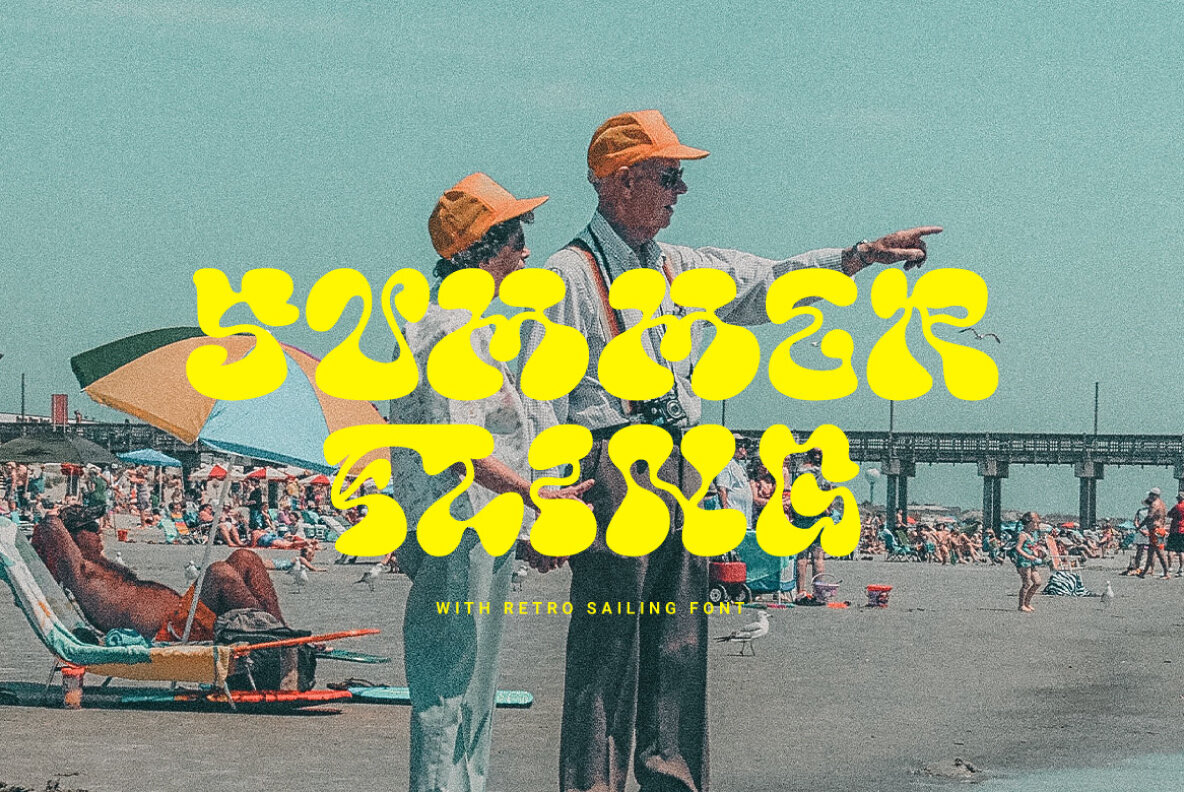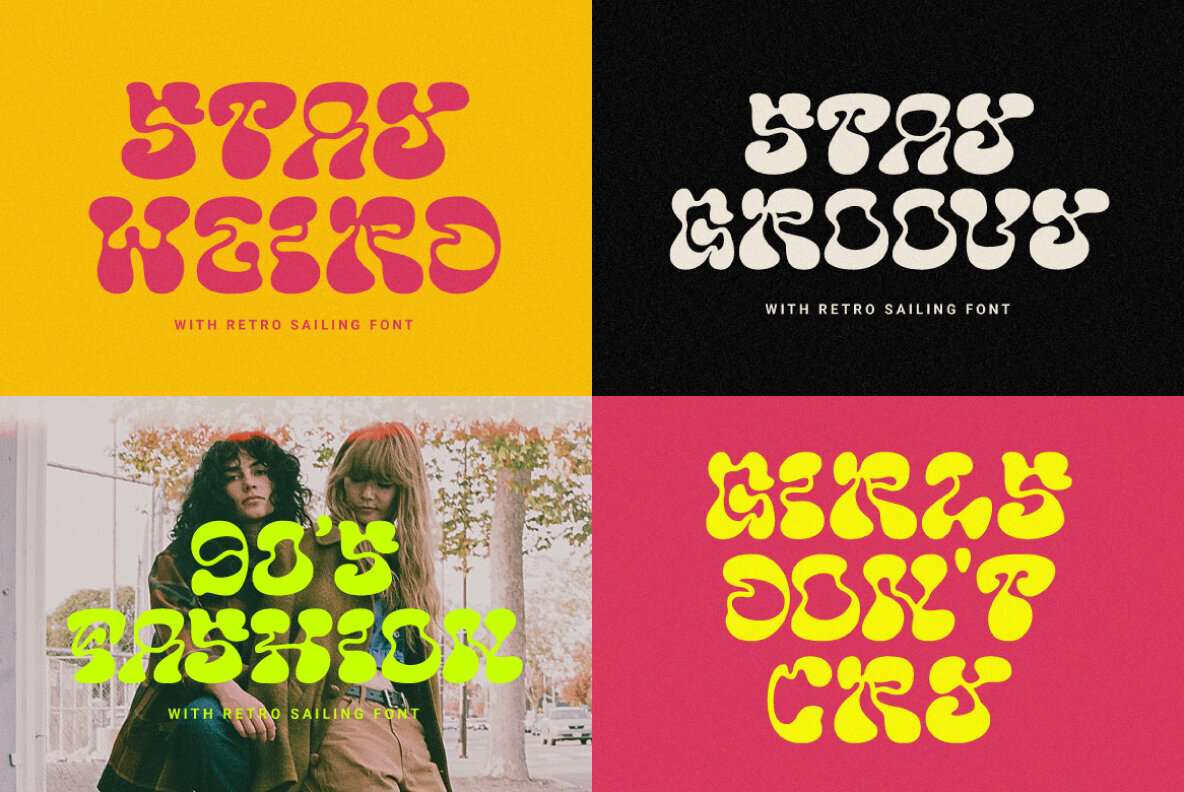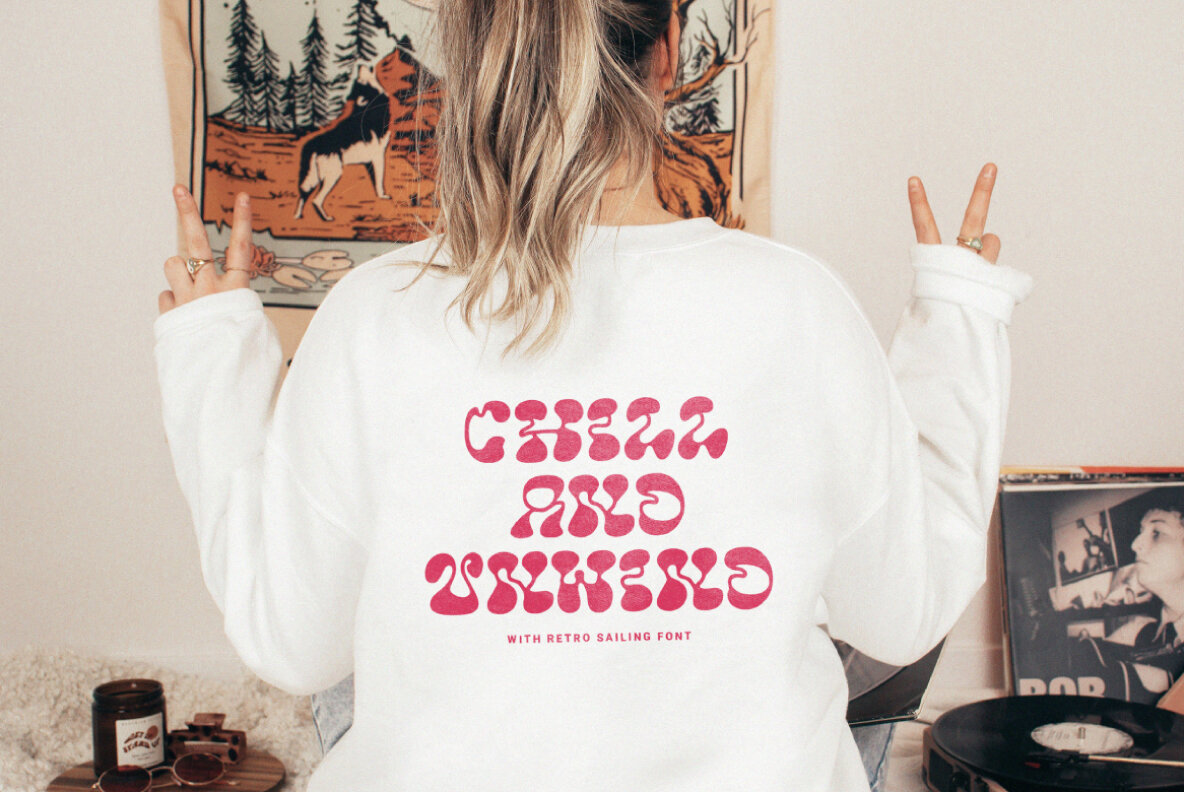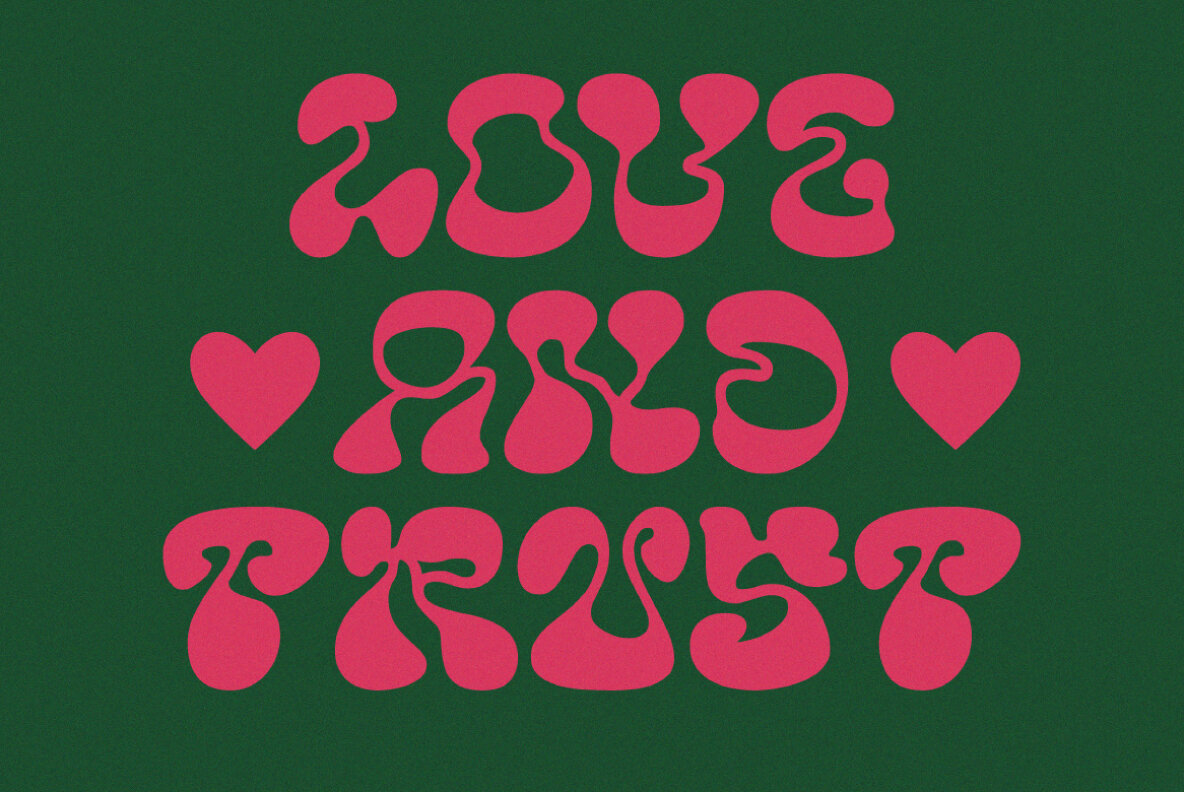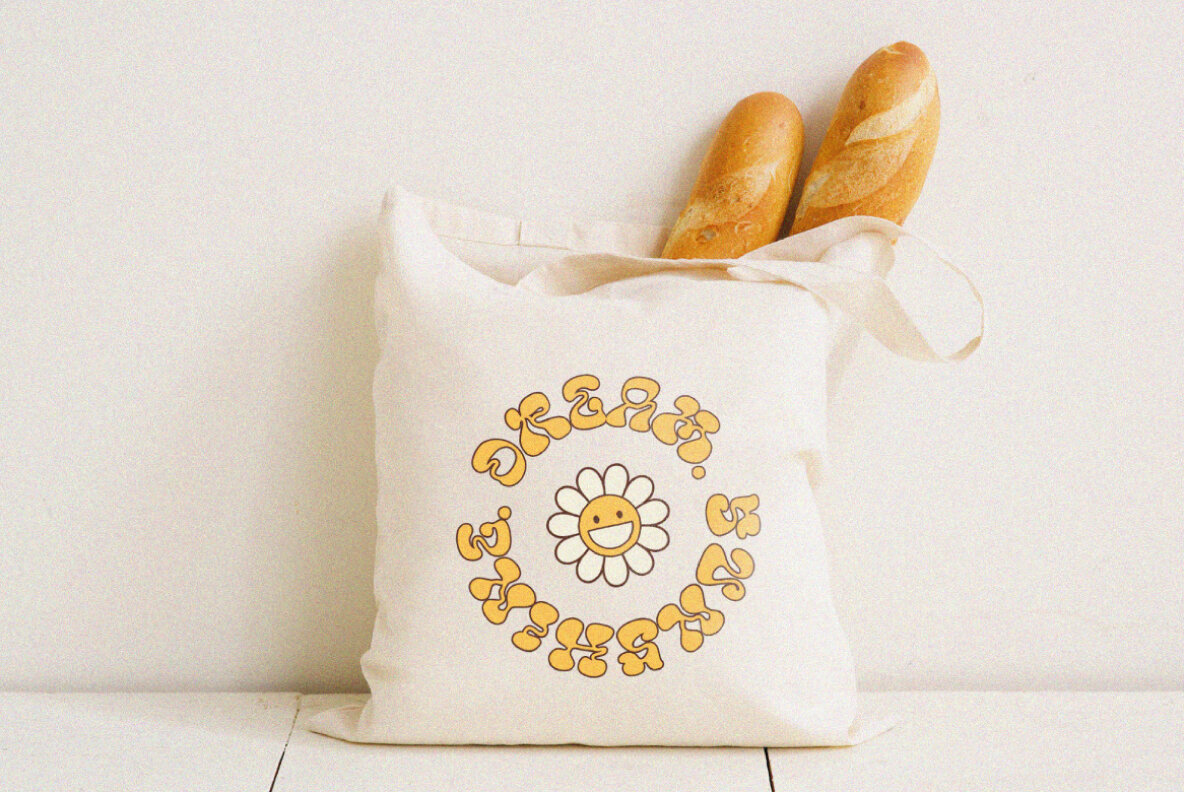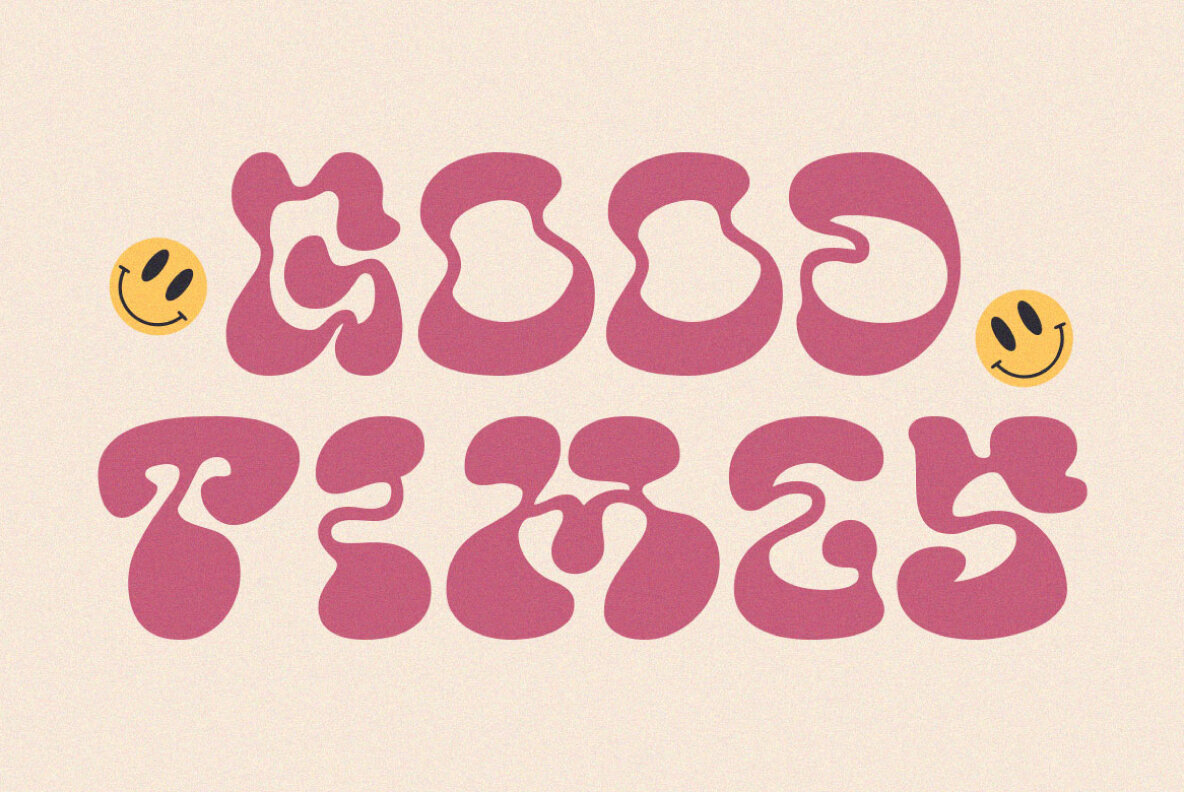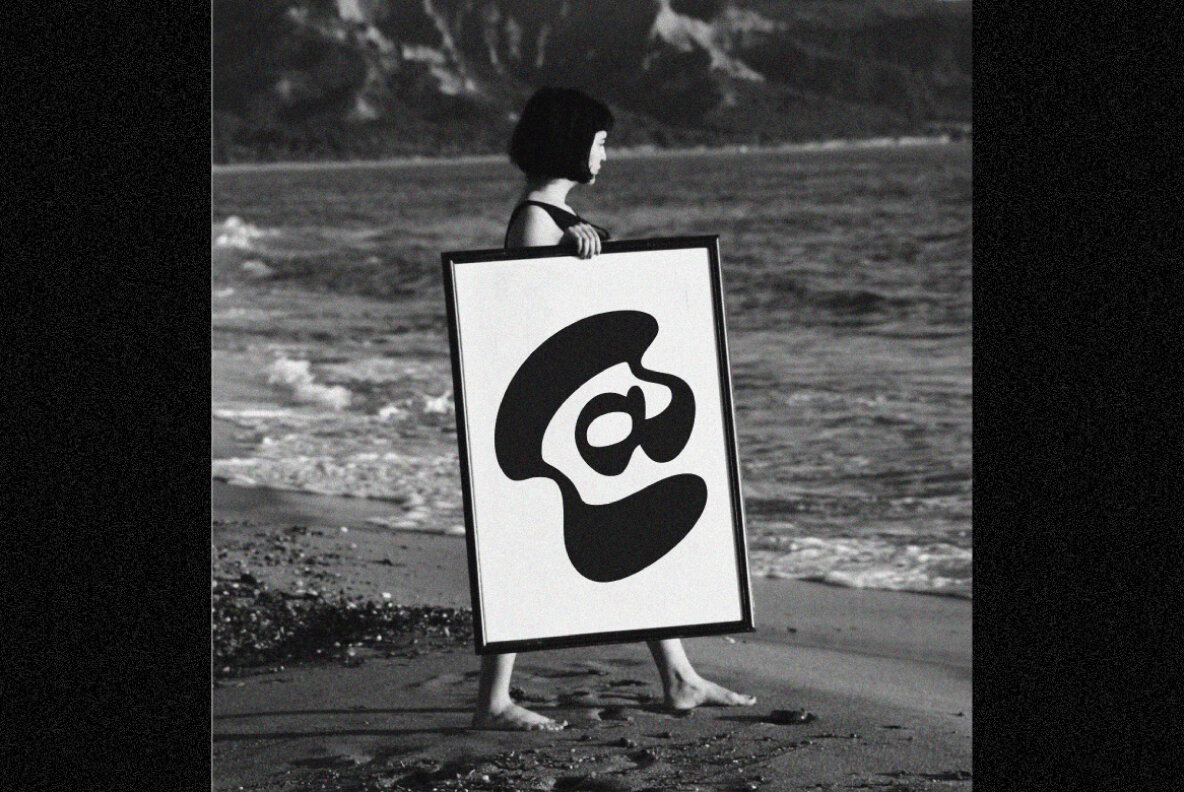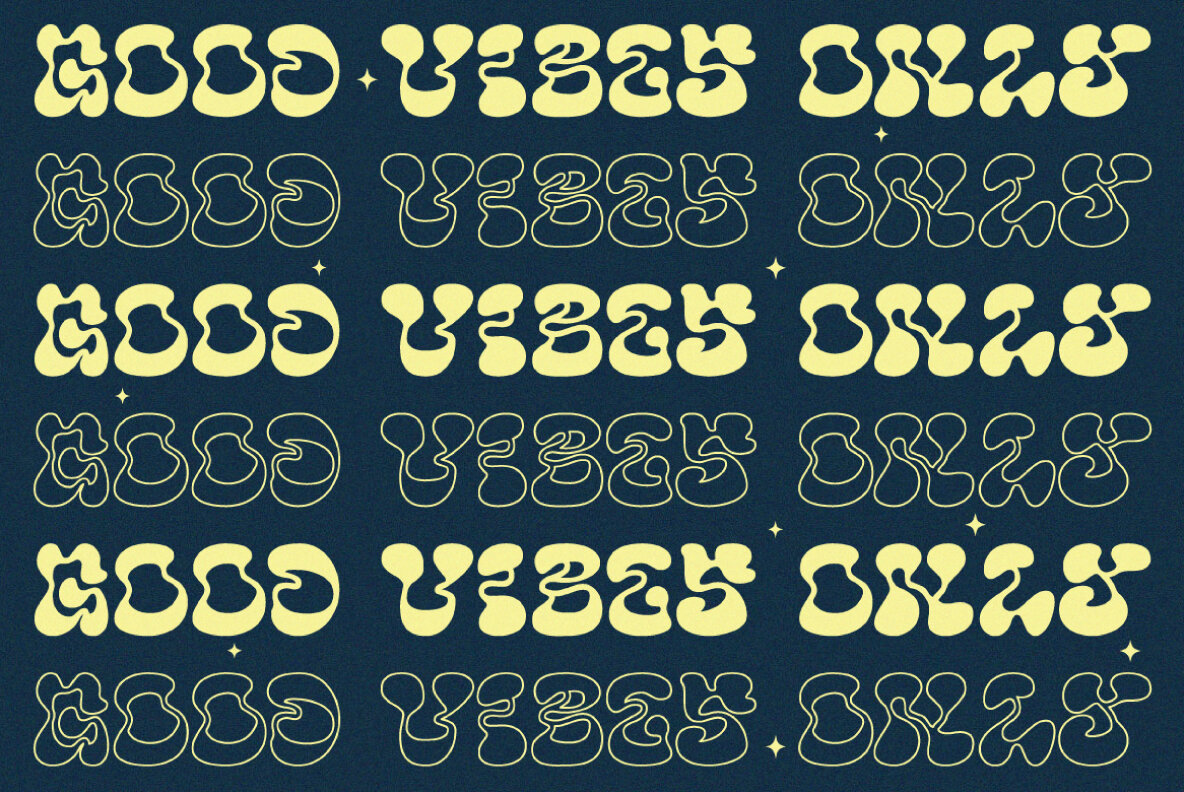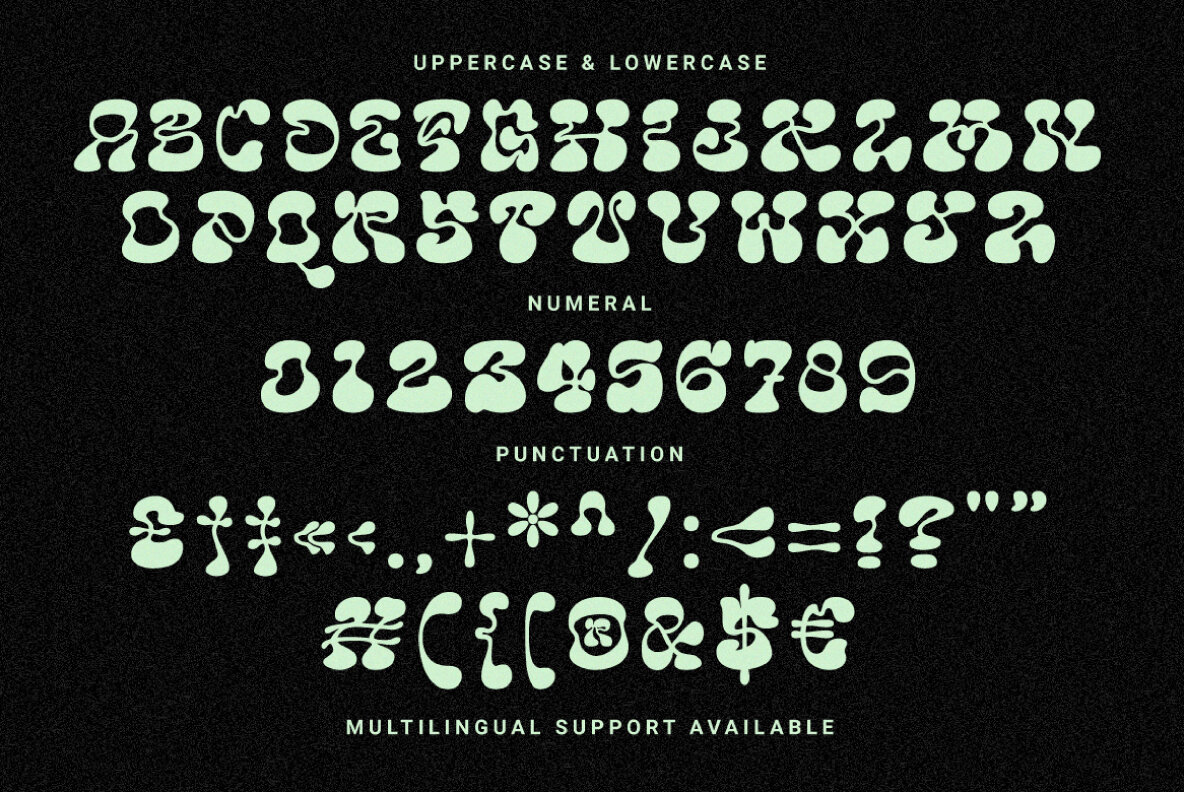
Retro Sailing Font
Retro Sailing
Retro Sailing - Weird Display Font. A whimsical style display font with a retro touch that clearly visualizes your designs. It is suitable for the design of merchandise, posters, covers and social media posts.